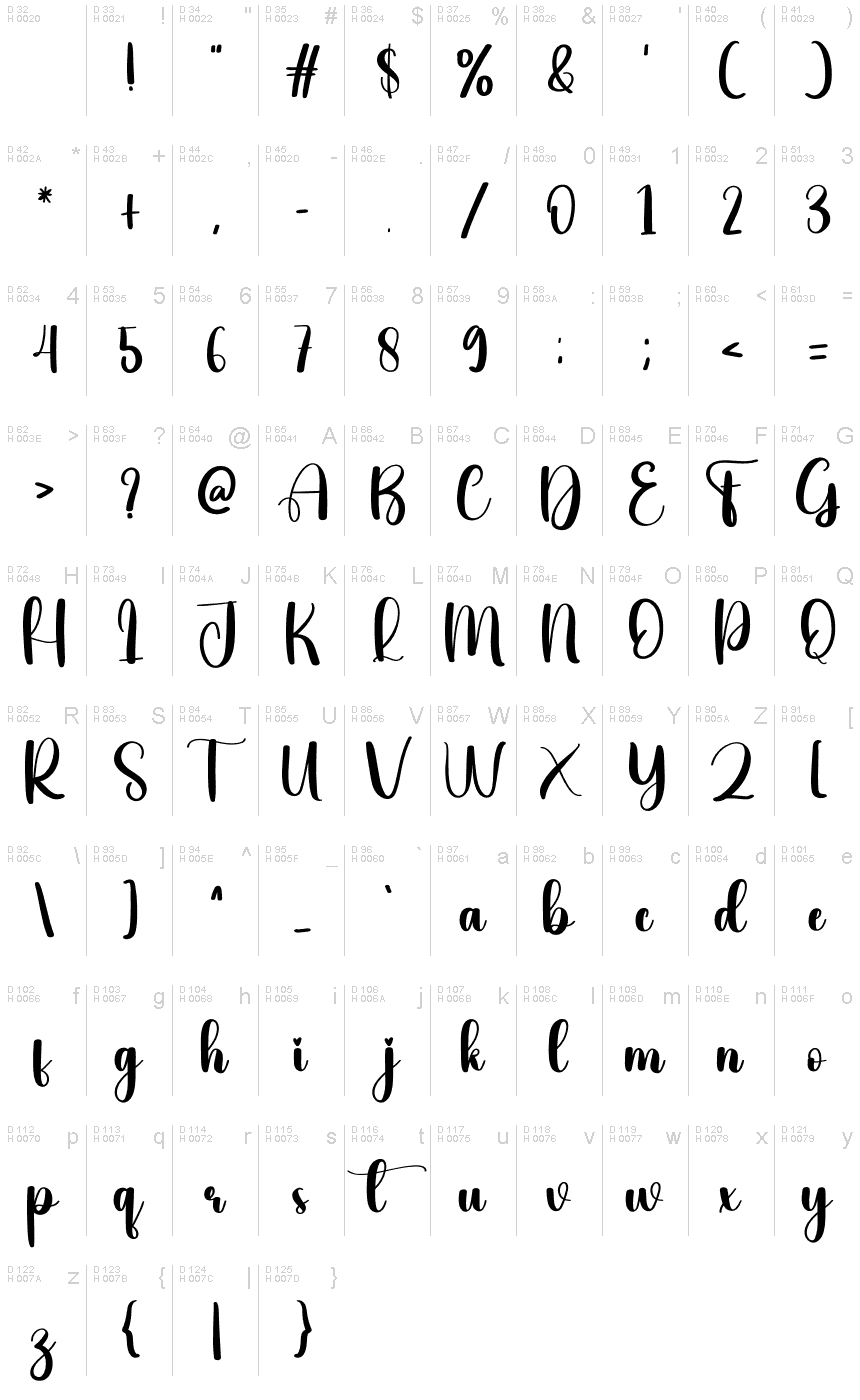
Eyes
Eyes, crafted by the talented Scratchones, is a calligraphy font that exudes elegance and a personal touch. With its flowing lines and organic form, this typeface captures the timeless beauty of handwritten script while maintaining modern sensibilities. The distinctive strokes in Eyes suggest a blend of sophistication and charm, making it ideally suited for invitations, branding, and artistic projects where a touch of human warmth is desired.
The aesthetic appeal of Eyes lies in its balance between delicacy and expressiveness; each character is designed with attention to detail that resonates with viewers on an intimate level. This font's style is versatile enough to enhance the visual narrative of any creative endeavor—from editorial layouts to personalized stationery—inviting audiences into a world where each letter tells its own story.
With Eyes' potential spanning across various mediums, designers can leverage its unique characteristics to infuse their work with a sense of individuality that stands out in today's digital landscape. Whether it graces the pages of a boutique magazine or adorns the packaging of artisanal goods, Eyes promises to add an artisanal flair that captivates and delights.